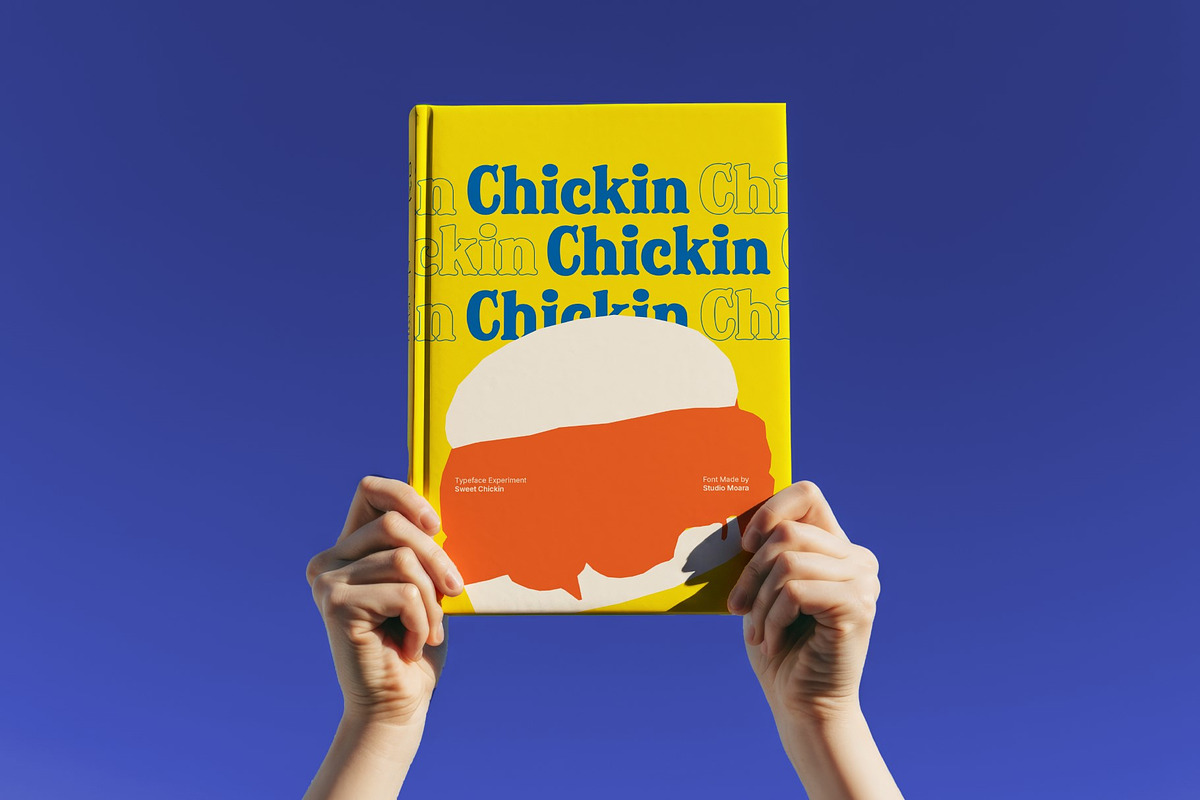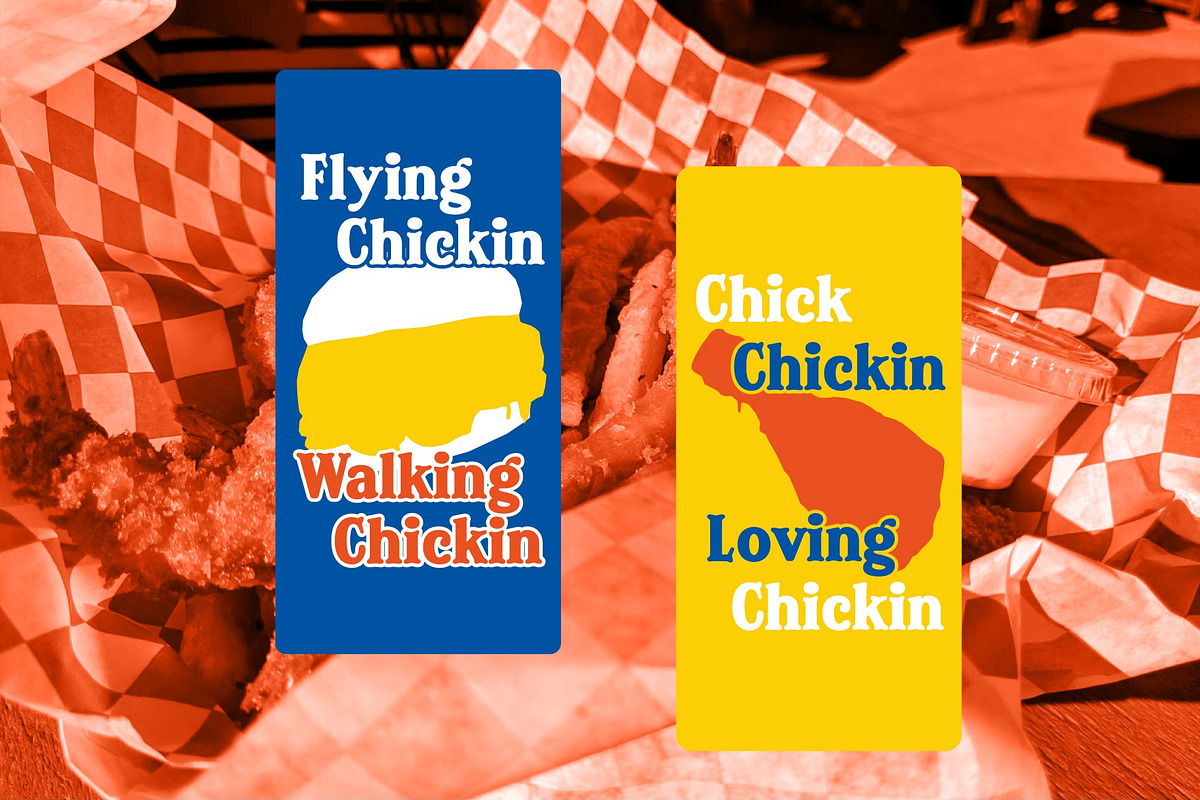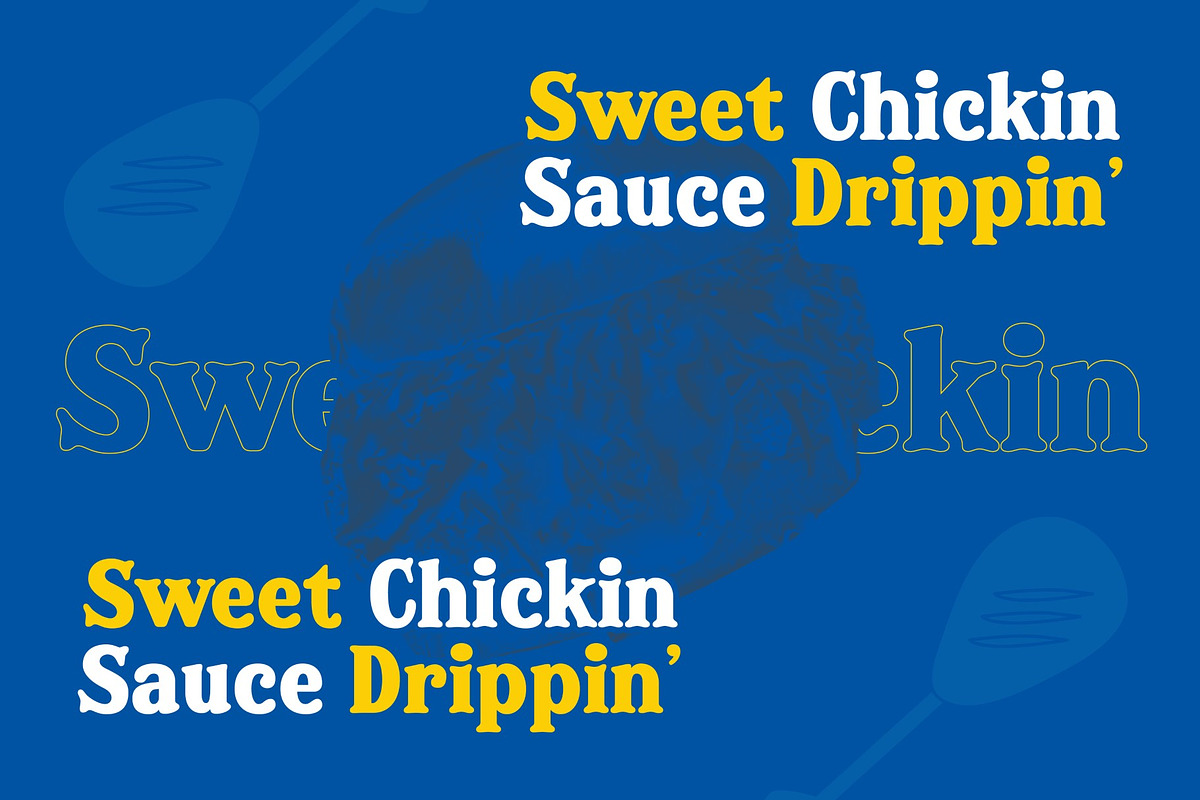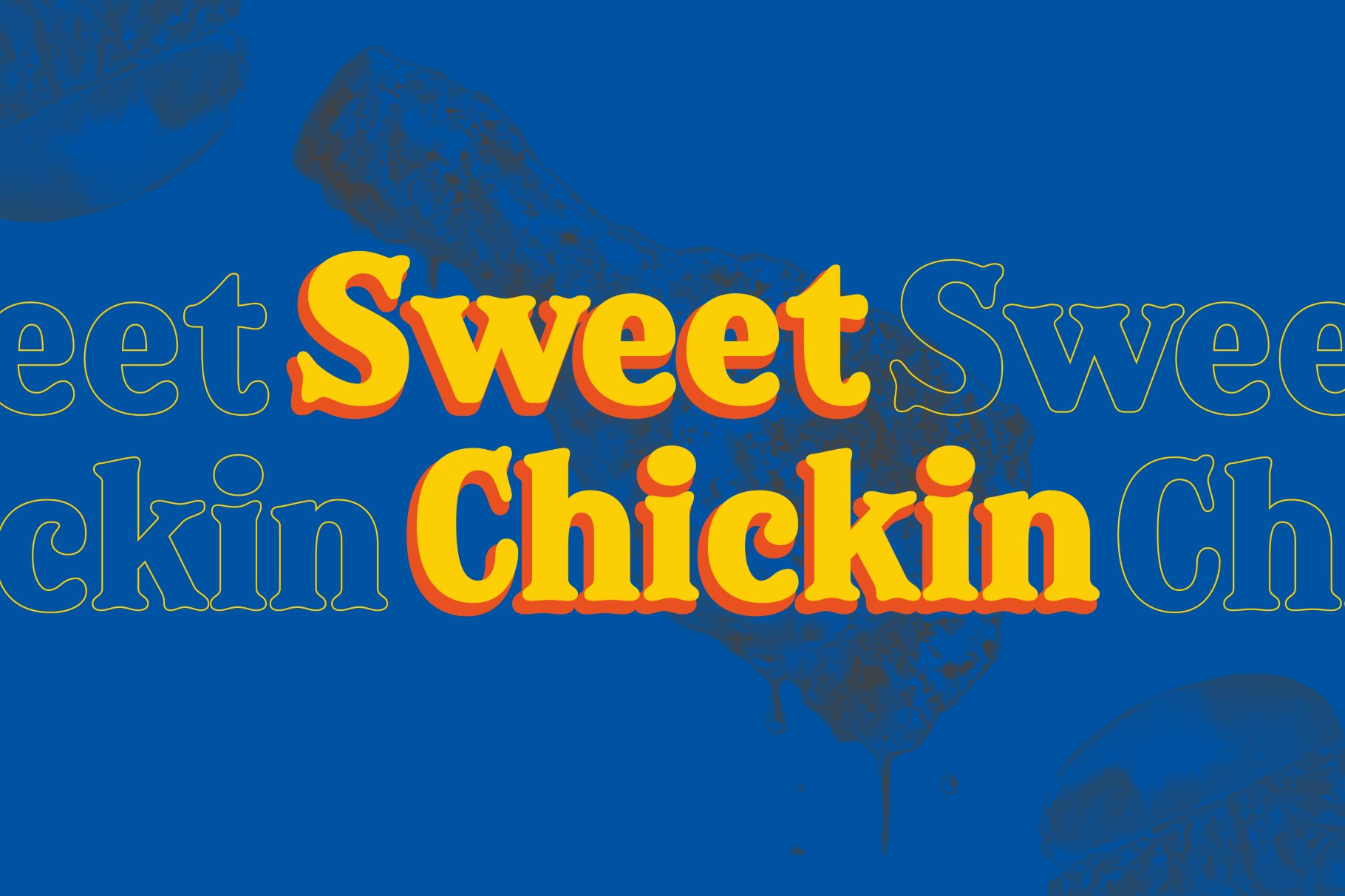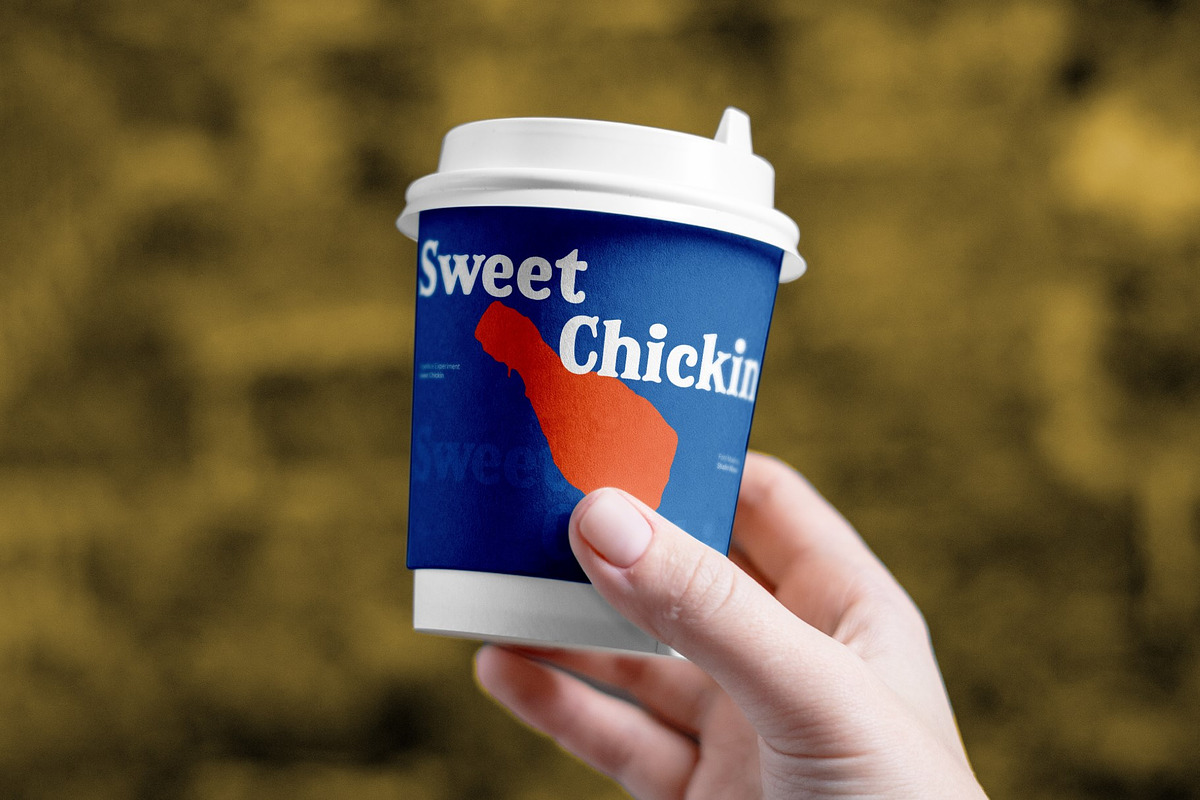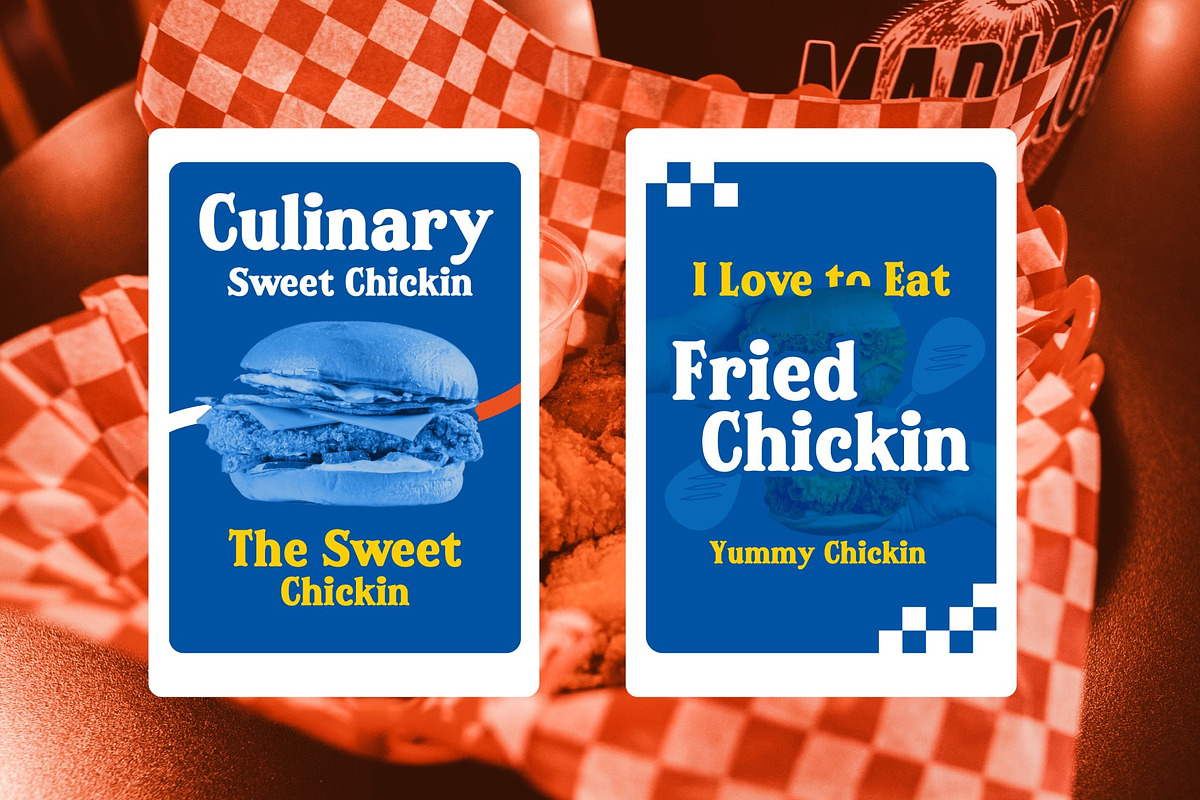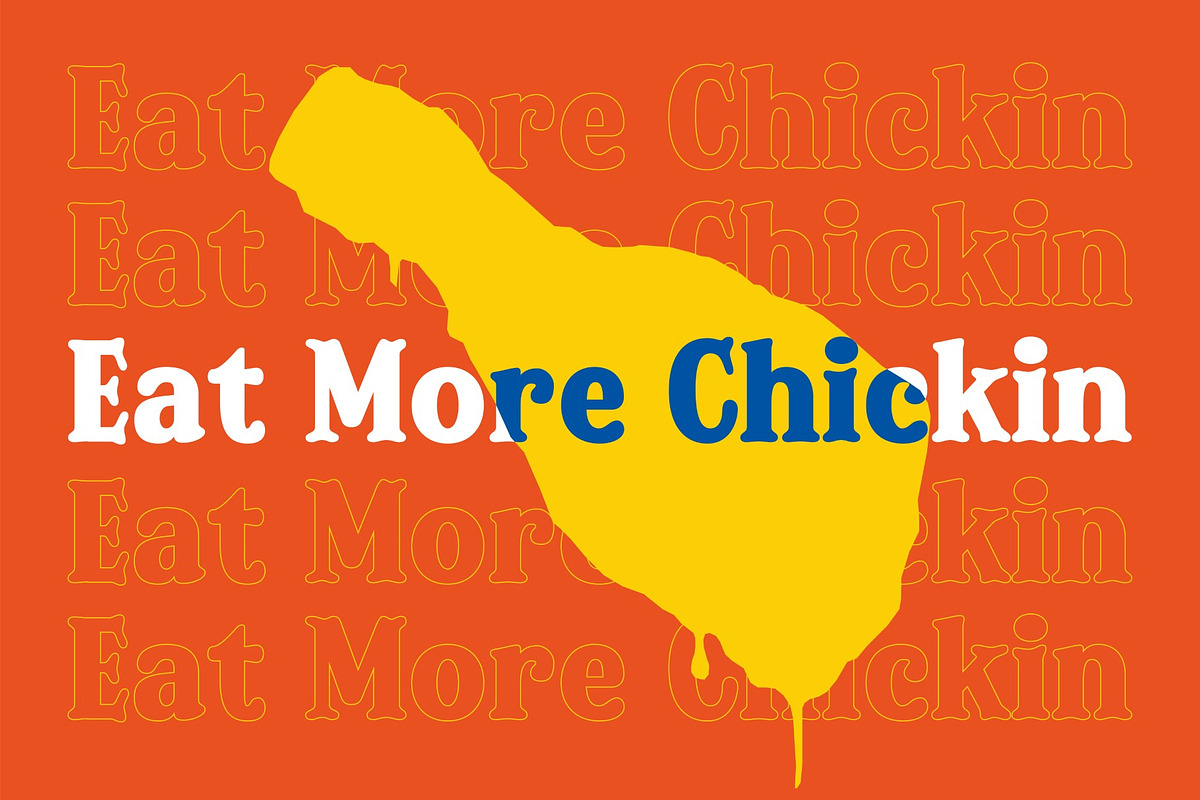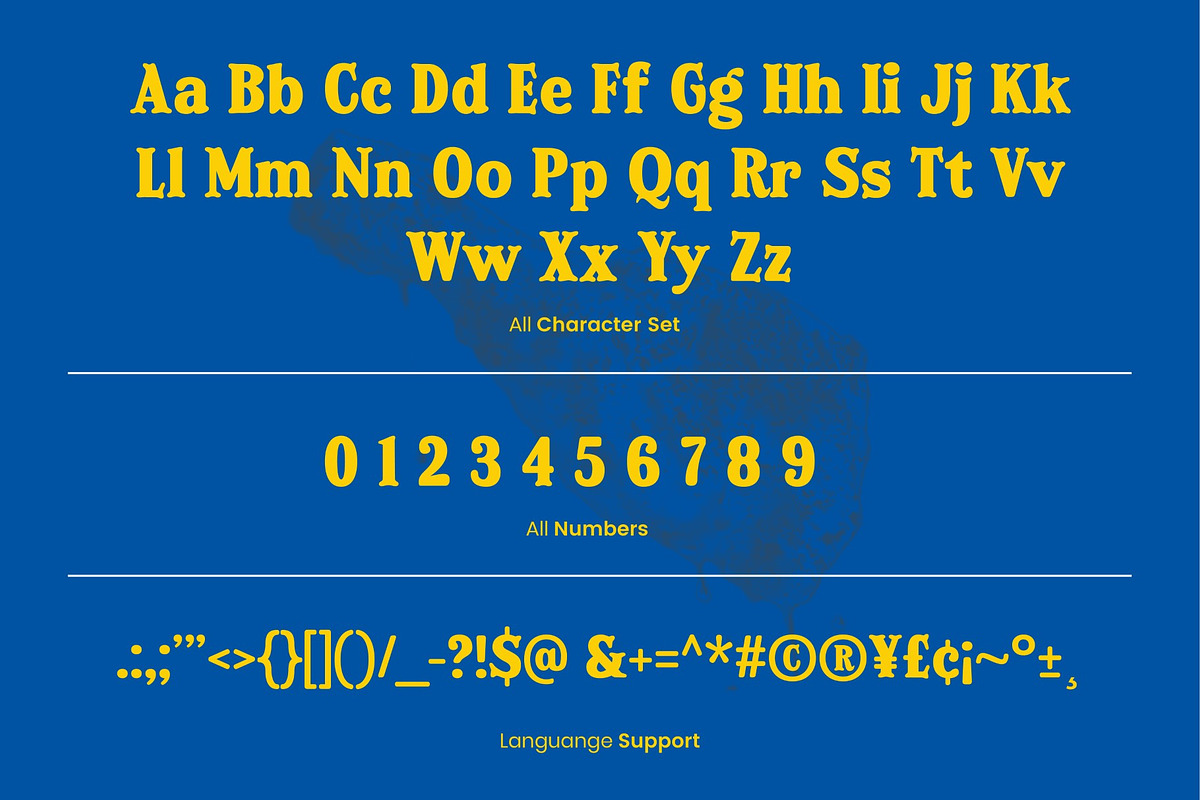
Sweet Chickin - Serif Display Font
Sweet Chickin is a bold and playful serif display font with a vintage fast-food-inspired aesthetic. Featuring chunky letterforms, fun curves, and retro vibes, it’s perfect for branding, menus, posters, and eye-catching headlines. With a nostalgic yet modern touch, Sweet Chickin brings energy and personality to any creative project.